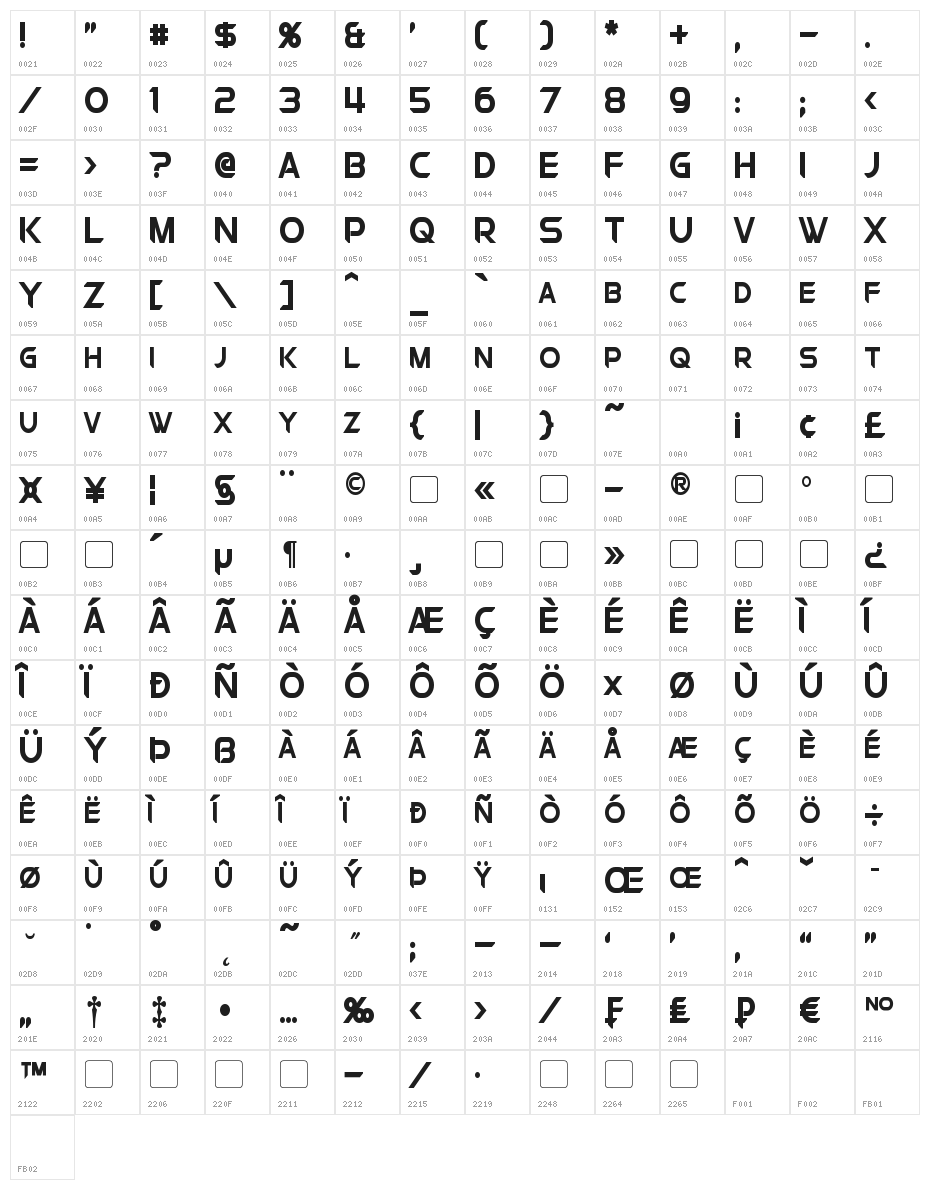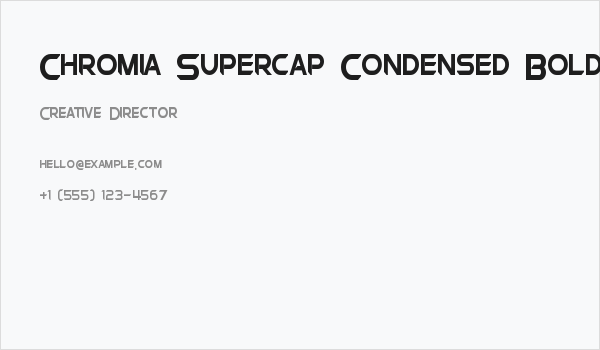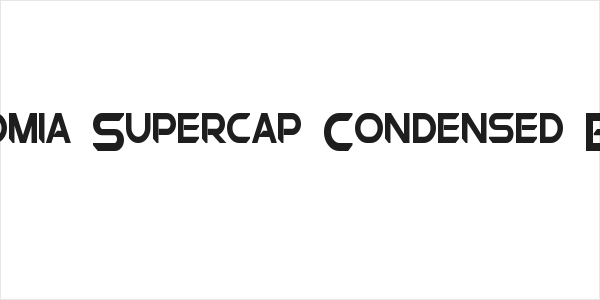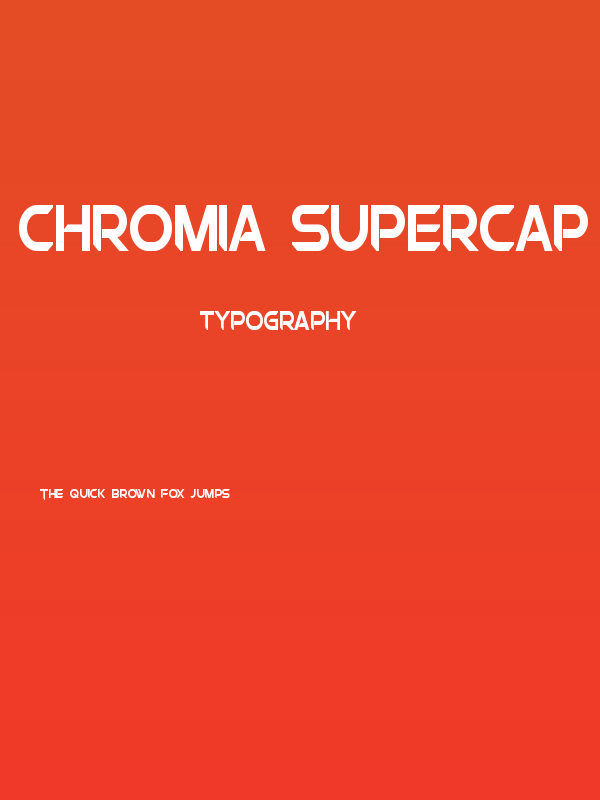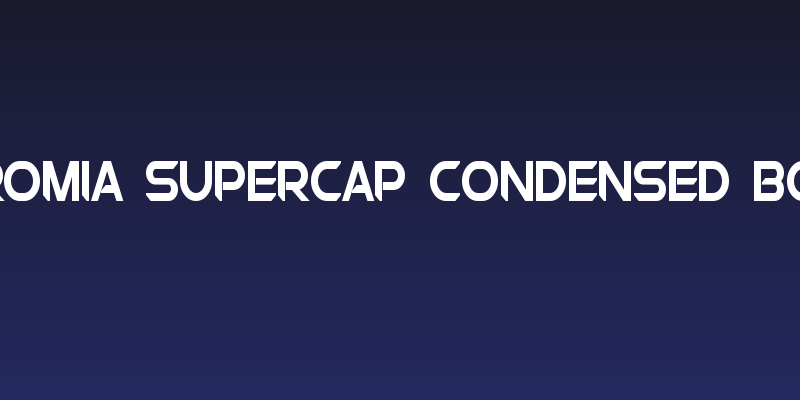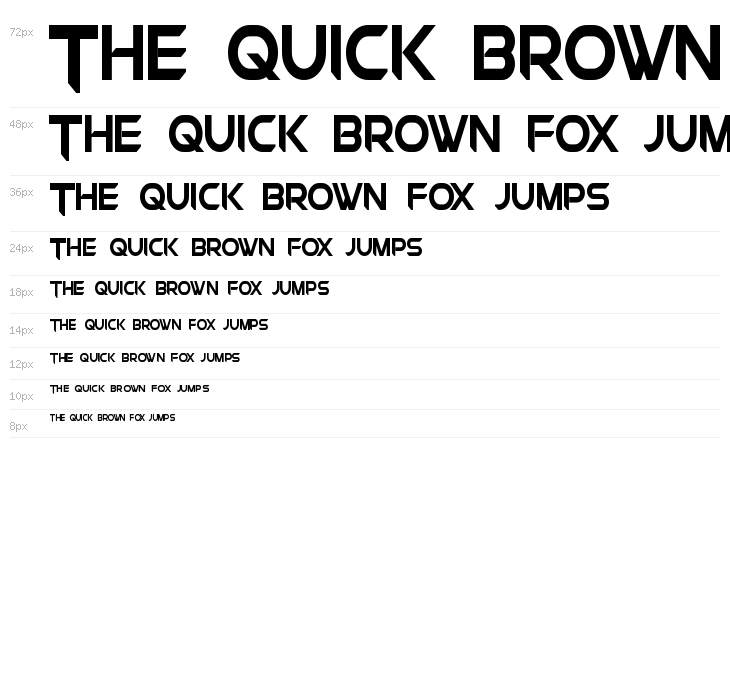
Chromia Supercap Condensed Bold Font
Chromia Supercap Condensed Bold Description
This font features a bold and condensed style with a modern and geometric aesthetic. The characters are designed with sharp angles and clean lines, giving it a futuristic and tech-inspired look. The uppercase and lowercase letters maintain a consistent height, enhancing readability while preserving a unique visual appeal. The numbers and special characters follow the same design principles, ensuring uniformity across all glyphs. This font's strong presence makes it ideal for impactful designs where attention is key.
Proposed ProjectsIdeal for technology branding, futuristic posters, video game titles, and digital interfaces.